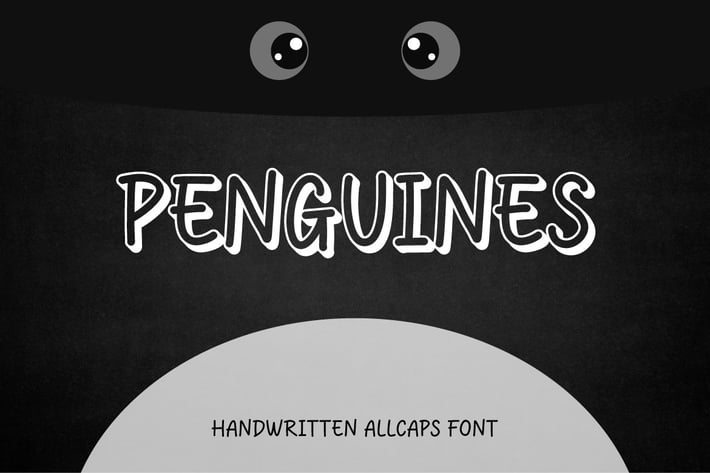
Penguines - Handwritten Allcaps Font
Hello! Penguines is a simple handwritten sansserif font.
Penguines can be used in any works such as storybook, comic book, school, flyer, book title, advertisement, social media content, logo and many more.